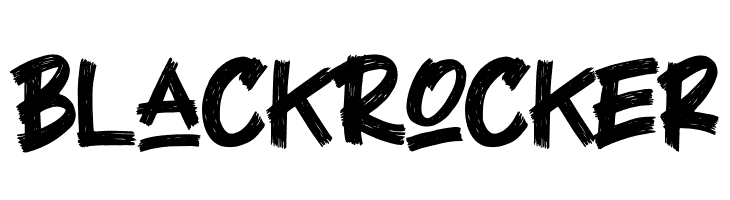
A bold, brush-style font with dynamic, energetic strokes.
A bold, brushstroke-style font with a dynamic, hand-drawn appearance.
A bold, brush-style font with dynamic and expressive strokes.
A bold, edgy, and dynamic font with a graffiti-like, hand-drawn style.
A bold, brush-style font with dynamic, hand-drawn strokes.